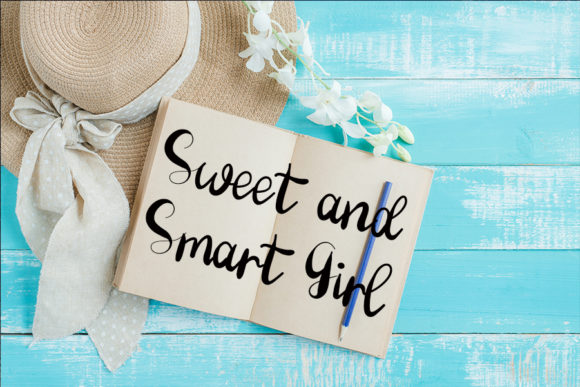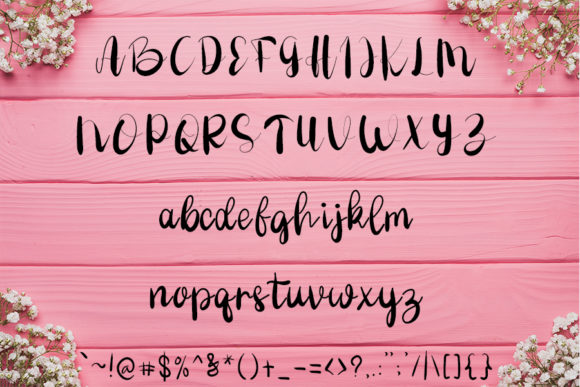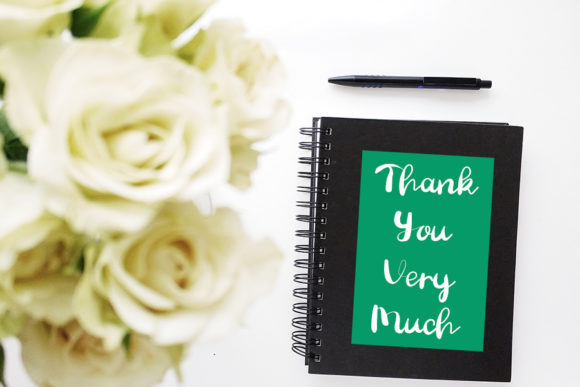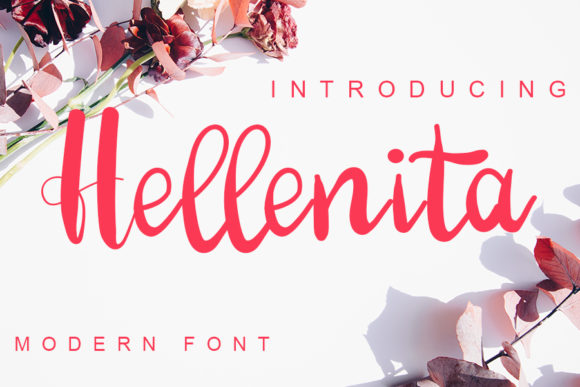
Hellenita Font: A Romantic Vintage Script for Your Creative Projects
In the world of typography, fonts play a crucial role in conveying emotions and setting the tone for a design. If you’re looking for a font that exudes romance and elegance, look no further than Hellenita. This vintage script font is perfect for designers and crafters who want to add a personal touch to their projects. In this article, we’ll explore the features of Hellenita and how you can use it to create stunning designs.
The Charm of Hellenita
Hellenita is a vintage script font that boasts flowing lines and curly swashes, giving it a romantic feel that’s hard to resist. Its elegant and refined appearance makes it an excellent choice for designs that require a touch of sophistication. Whether you’re creating Valentine’s Day cards, wedding invitations, or any other project that needs a personal touch, Hellenita is the perfect font to use.
Features of Hellenita
So, what makes Hellenita stand out from other fonts? Here are some of its key features:
- Flowing lines and curly swashes: Hellenita’s unique design elements give it a romantic and elegant feel that’s perfect for designs that require a personal touch.
- Vintage script style: This font’s vintage script style is reminiscent of classic typography, making it perfect for designs that require a touch of nostalgia.
- Highly legible: Despite its ornate design, Hellenita is highly legible, making it easy to use for both print and digital designs.
Using Hellenita in Your Designs
Now that we’ve explored the features of Hellenita, let’s talk about how you can use it in your designs. Here are some ideas to get you started:
- Valentine’s Day cards and crafts: Hellenita’s romantic feel makes it perfect for Valentine’s Day designs. Use it to create stunning cards, gift tags, and other crafts.
- Wedding invitations: If you’re a designer or crafty person, you know how important it is to create wedding invitations that are both elegant and personal. Hellenita is an excellent choice for wedding designs, adding a touch of sophistication and romance.
- Personalized gifts: Hellenita is also perfect for creating personalized gifts, such as customized mugs, tote bags, and journals.
Tips for Using Hellenita Effectively
To get the most out of Hellenita, here are some tips to keep in mind:
- Pair it with a simple font: To create visual interest, pair Hellenita with a simple font, such as a sans-serif or serif font.
- Use it sparingly: While Hellenita is a beautiful font, it’s best to use it sparingly to avoid overwhelming your design. Use it for headings or titles, and a simpler font for body text.
- Experiment with colors: Hellenita looks stunning in a variety of colors, from soft pastels to rich jewel tones. Experiment with different colors to find the perfect combination for your design.
Hellenita is a beautiful vintage script font that’s perfect for designers and crafters who want to add a personal touch to their projects. Its flowing lines and curly swashes give it a romantic feel that’s hard to resist. Whether you’re creating Valentine’s Day cards, wedding invitations, or personalized gifts, Hellenita is an excellent choice. With its highly legible design and elegant appearance, it’s sure to become a favorite in your font collection.